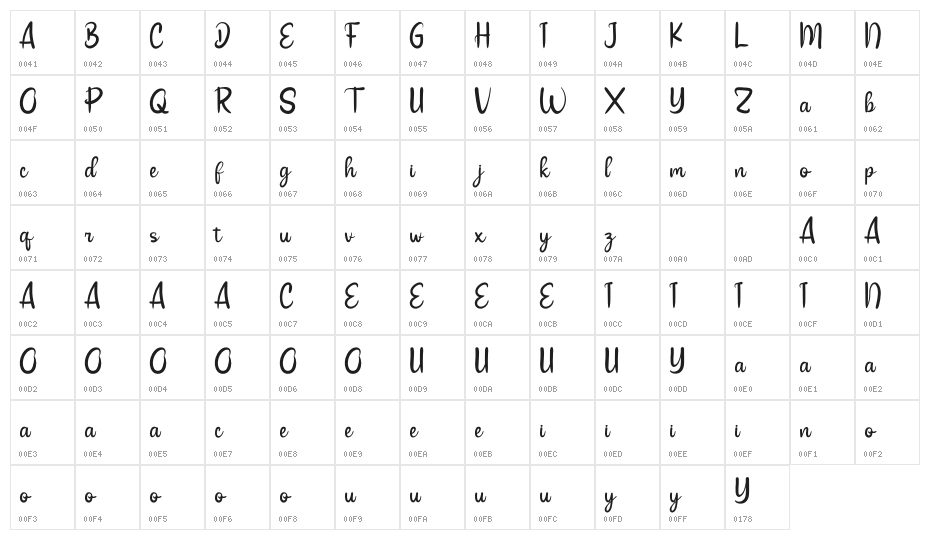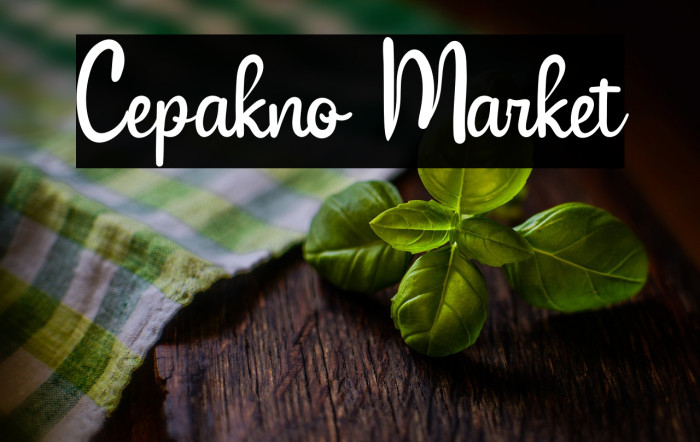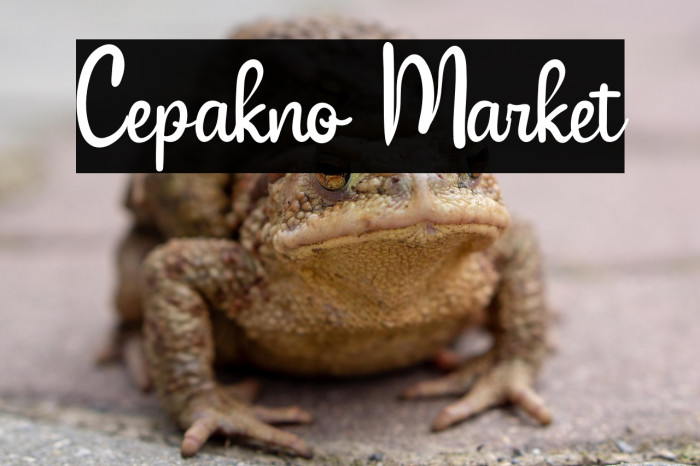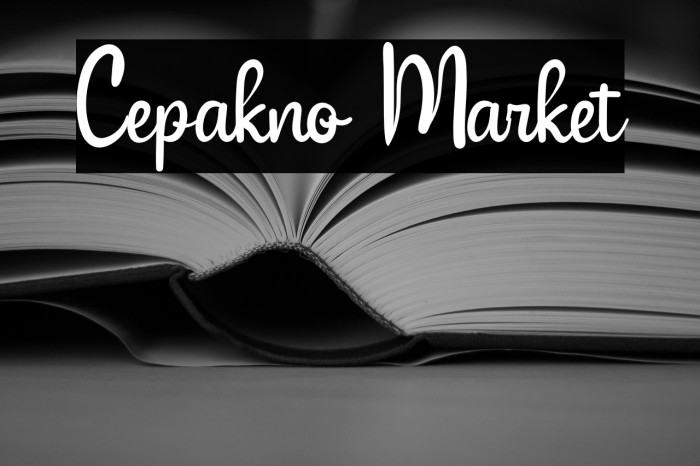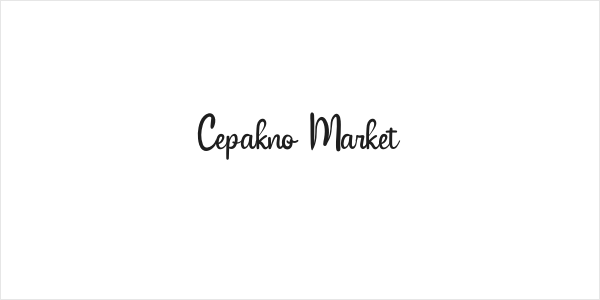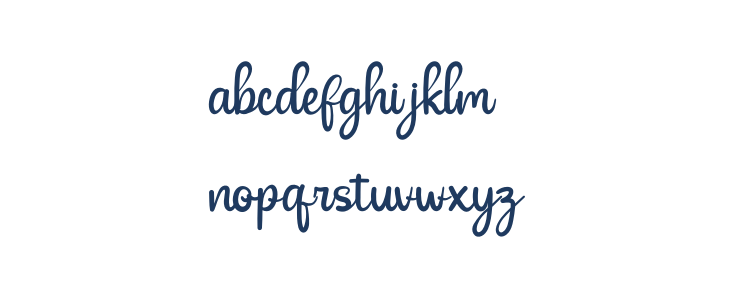
Cepakno Market Font
Cepakno Market Description
This font features a playful and dynamic script style with a handwritten appearance. The uppercase letters are bold and slightly slanted, giving a sense of movement and energy. The lowercase letters maintain a consistent flow with smooth curves and loops, enhancing the casual and friendly feel. The strokes are moderately thick, providing good readability while retaining a personal touch. The font lacks numerical and special character representations, focusing primarily on alphabetic characters. Its overall style is modern and informal, suitable for creative and expressive designs.
| Proposed Projects | Ideal for greeting cards, invitations, personal branding, and creative projects requiring a personal touch. |